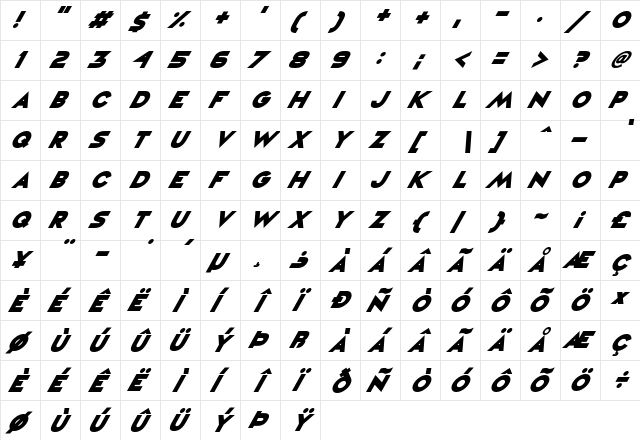
Vampire Raves Italic
Design Context for Vampire Raves Typeface
Vampire Raves takes a measured approach to typography — its balanced proportions and neutral character make it a reliable workhorse for both digital and print work. The slanted form adds forward momentum and visual energy.
Pro Tip: Use Vampire Raves for emphasis, pull quotes, and subheadings where its slanted energy can add rhythm to the layout.